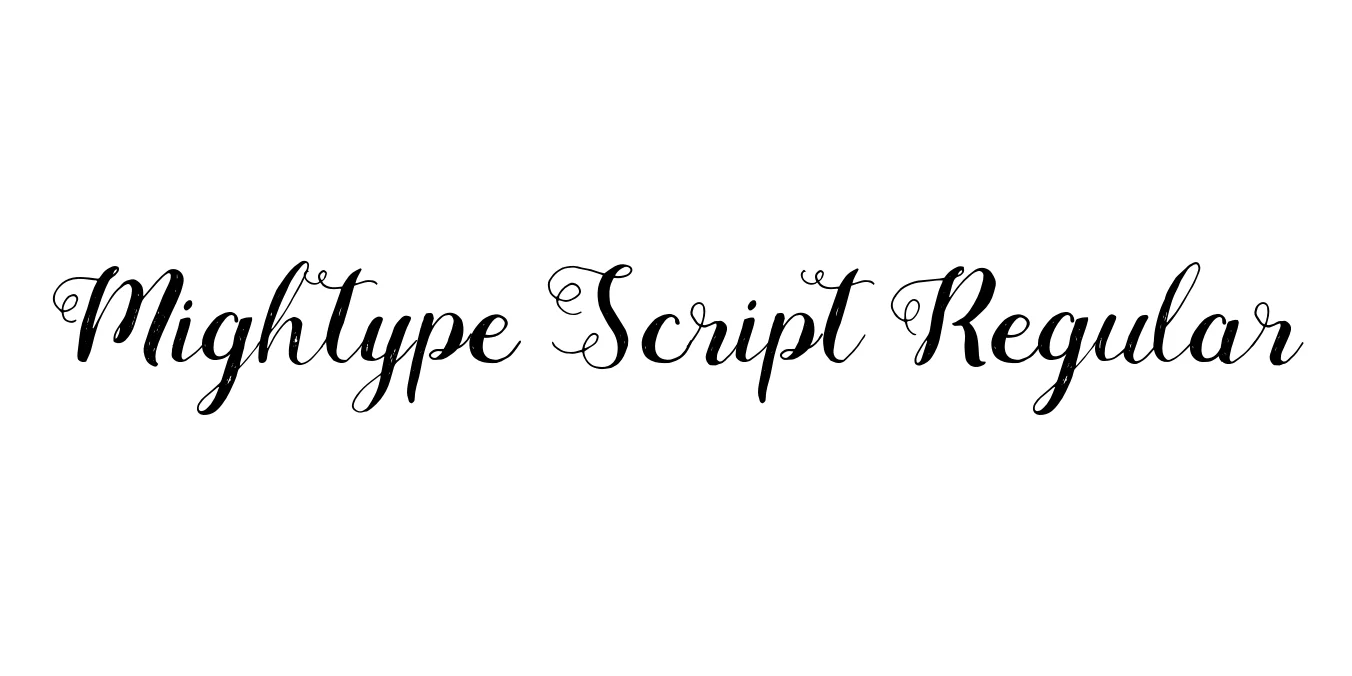
Mightype Script Regular
Designed by AF Studio (Mats-Peter Forss)
Mightype Script Regular is a beautifully hand-lettered font that originates from the comprehensive Mightype Font Pack. Created by AF Studio, this typeface was designed to bridge the gap between digital precision and the organic warmth of hand-drawn calligraphy. It features fluid strokes, natural connections, and a gentle rhythm that provides an authentic, artisanal feel to any typographic composition.
As part of a larger collection of graphic assets, Mightype Script stands out for its versatility in modern branding and editorial design. The font includes a range of character alternates and ligatures that allow designers to customize the flow of text, making it a favorite for high-end packaging, wedding stationery, and social media content that requires a personal touch.
Mightype Script Regular Best Uses
Perfect for logos and identity systems needing a hand-drawn, boutique feel.
Great for aesthetic quotes, stories, and lifestyle content.
Ideal for organic cosmetics, artisanal food products, and label design.
Excellent for wedding invitations, greeting cards, and personal correspondence.